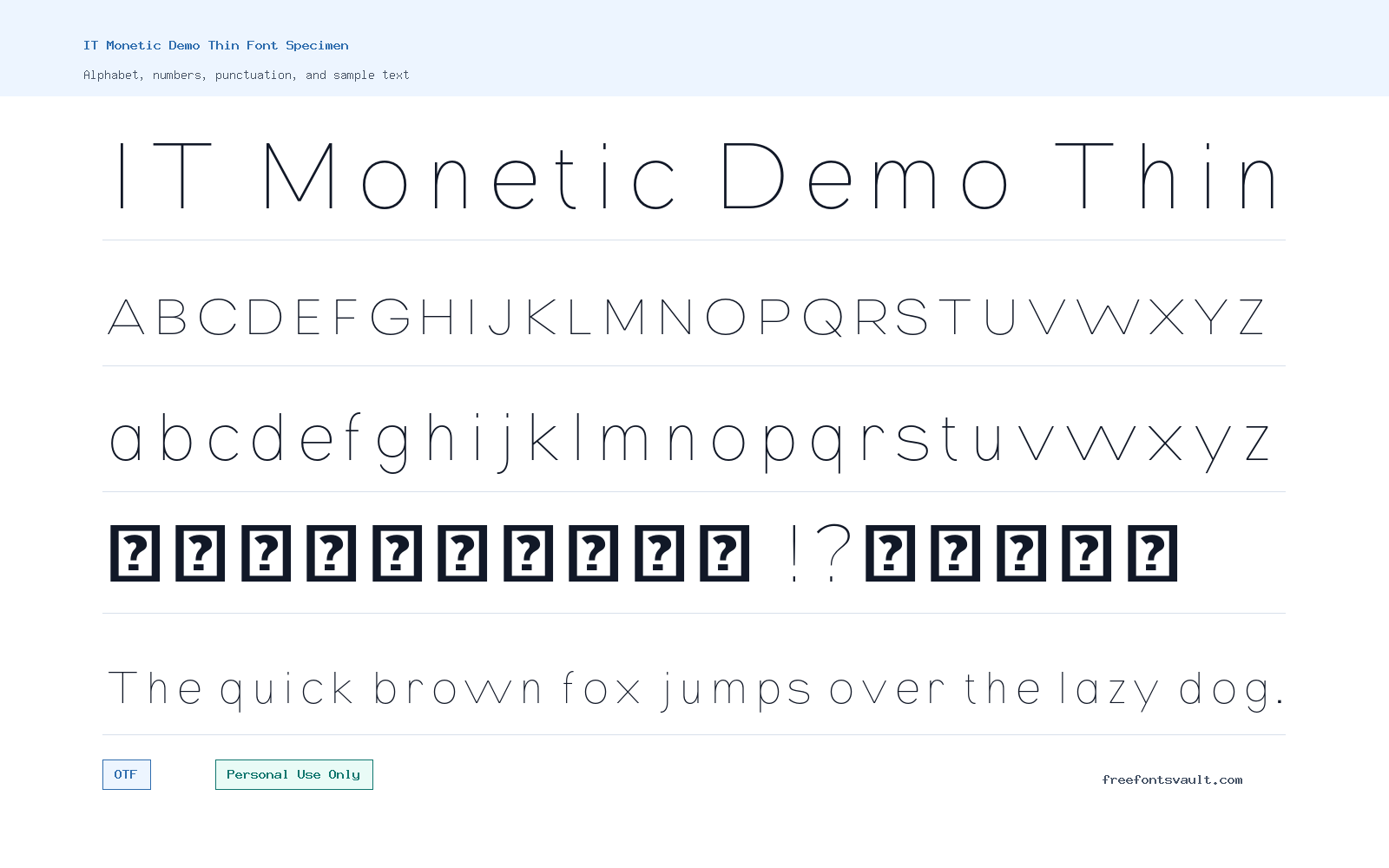
IT Monetic Demo Thin
IT Monetic Demo Thin font.
IT Monetic Demo Thin is a light, thin-weight sans serif demo font from Indotype Foundry. It is best approached as a personal-use testing font for clean display layouts, logo drafts, posters, and visual mockups where a slim letter style is needed.
About IT Monetic Demo Thin
IT Monetic Demo Thin uses a very light 100-weight style, which gives the type a quiet, minimal look. Because it is a thin sans serif, it works best when the letters have enough size and spacing to stay clear. Try it first in short headings, brand-name mockups, poster titles, invitation-style layouts, editorial covers, and clean web hero sections. Thin fonts can look elegant at large sizes, but they may lose strength in small text, crowded menus, low-resolution screens, or designs with busy image backgrounds.
This is a demo font, so visitors should treat it as a preview and personal testing version rather than a full commercial family. Use the font preview to check uppercase and lowercase forms, punctuation, numbers, and spacing before downloading. If you are testing it for logo work, start with large wordmarks and simple compositions. Avoid relying on it for long paragraphs unless the final design keeps the text large, high-contrast, and easy to read. Pair it with a sturdier sans serif for body copy, captions, interface labels, or any text that needs to be read quickly.
- Thin 100-weight sans serif style for light display typography
- Normal style demo cut for testing headings, wordmarks, and layout ideas
- Clean visual direction that works best with generous spacing and high contrast
- Logo drafts and wordmark experiments for personal projects
- Poster titles, cover text, and large display headings
- Minimal web mockups, landing page hero text, and interface concept screens
- Mood boards, typography studies, and personal branding tests
- Short invitation, packaging, or editorial-style design previews
For the best result, use IT Monetic Demo Thin at larger sizes where its fine strokes can breathe. Increase tracking slightly for all-caps headings, keep the background simple, and avoid low-contrast color combinations. For web mockups, use it mainly for hero text or short feature headings, then pair it with a stronger sans serif for paragraphs and navigation. For logo concepts, test the word at small and large sizes before deciding whether the thin strokes are practical.
What kind of font is IT Monetic Demo Thin?
It is a thin-weight sans serif demo font. The available style is a normal OTF font with a 100 weight.
Can I use IT Monetic Demo Thin for a logo?
Is this font good for body text?
It is better for short display text than long paragraphs. Thin fonts often need larger sizes, strong contrast, and generous spacing to remain readable.
What should I pair with IT Monetic Demo Thin?
Pair it with a more readable sans serif for body copy, captions, menus, and small text. Let IT Monetic Demo Thin handle the lighter display role while the companion font carries the practical reading work.